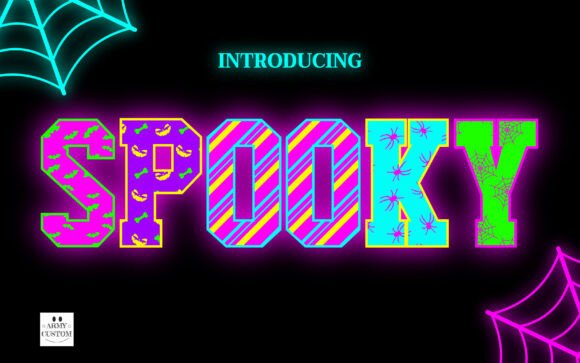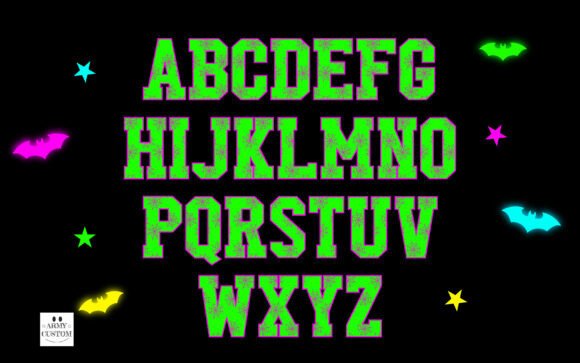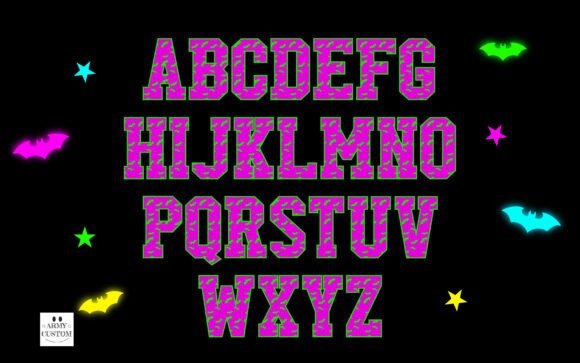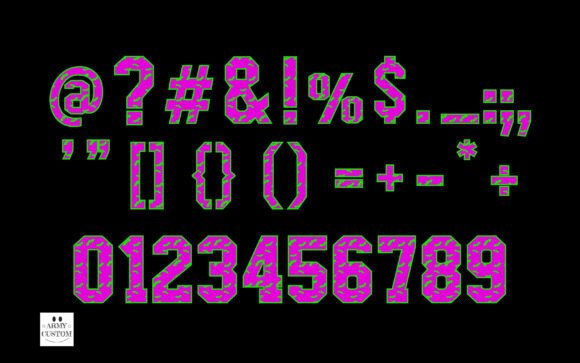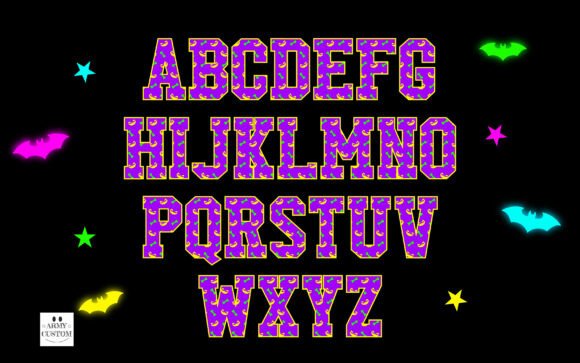
Introduction to Halloweenneon Spider Font
Immerse yourself in the fun-filled, whimsical ambiance of the holiday season with “Neon Halloween Army OTF.
” This font collection dazzles with its bold and vibrant colors, meticulously crafted to infuse your creative projects with a distinctive touch of festive merriment Let the dynamic and attention-grabbing nature of “Neon Halloween Army OTF” be the ultimate expression of your holiday spirit.